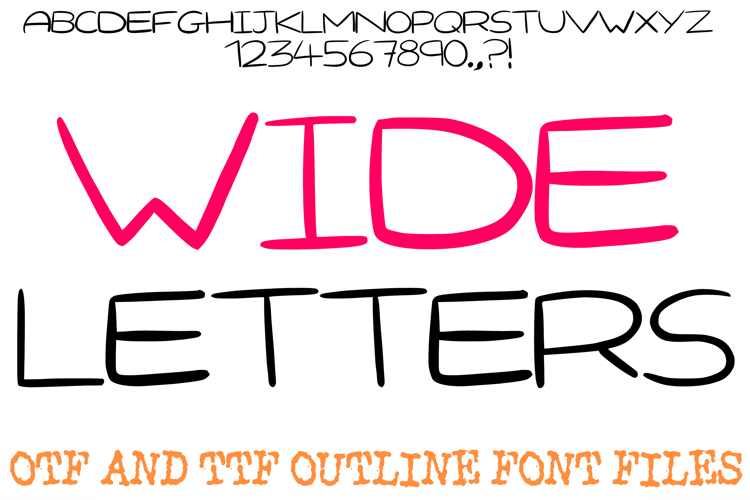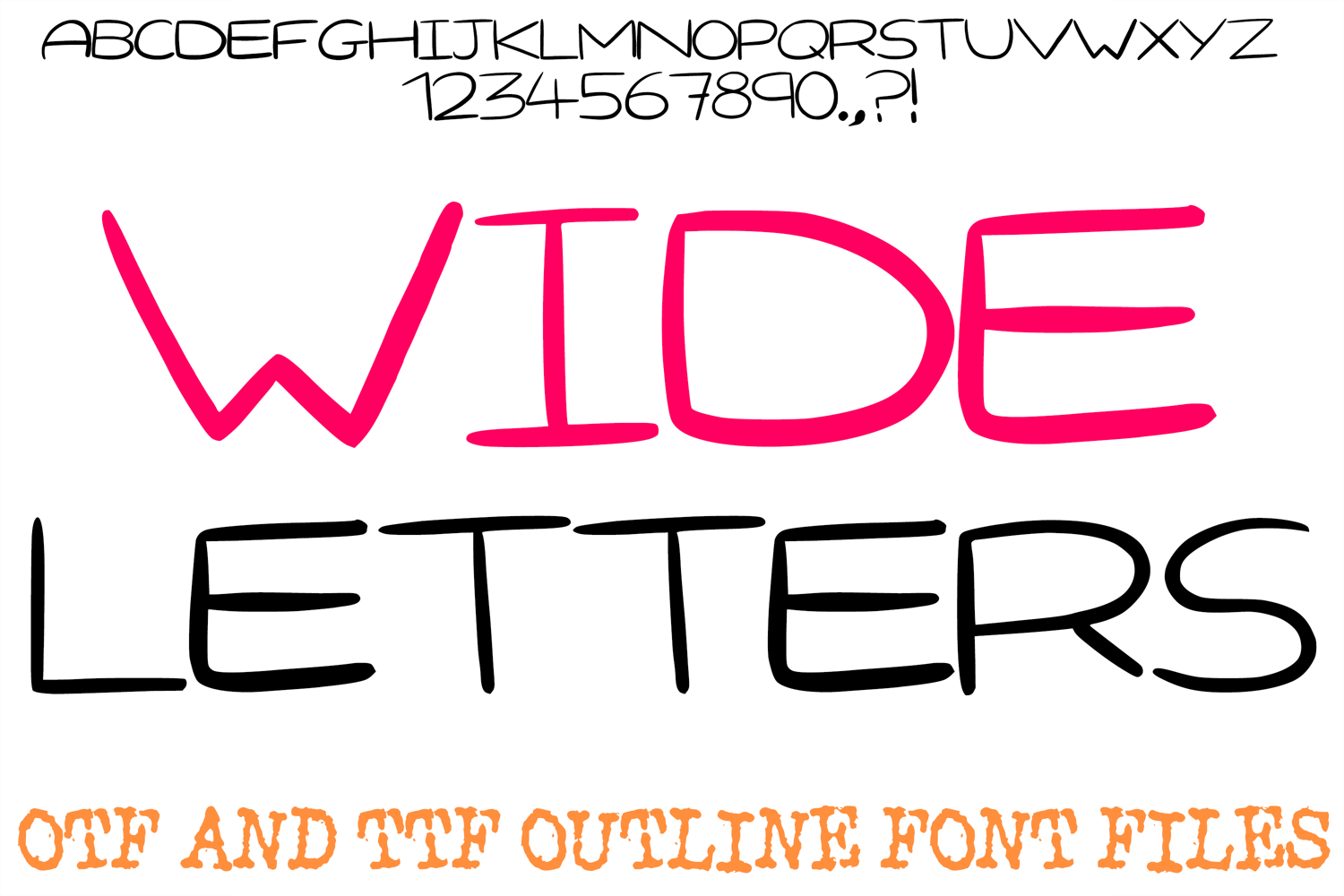
Wide Letters is a clean, minimalist display font designed with an expansive, airy aesthetic. Characterized by its relaxed, wide-set proportions and organic, hand-drawn lines, this typeface captures a modern, effortless vibe. It is a perfect choice for designers focusing on digital journaling, contemporary social media branding, minimalist packaging, and professional stationery.
Crafted with a consistent medium weight and a friendly, open feel, Wide Letters ensures high readability while maintaining a trendy, "slow-living" aesthetic. Whether you are creating calming quote overlays, elegant wedding invitation details, or clean headings for a lifestyle blog, this font adds a touch of understated sophistication to every project.
Why Your Designs Will Stand Out
Expansive Proportions: The wide-set character spacing creates a sense of openness and breathability, ideal for modern, uncluttered layouts.
Organic Line Quality: The subtle, hand-inked texture gives your text an authentic feel that standard geometric fonts lack.
Minimalist Versatility: Its simple, clean structure makes it incredibly easy to pair with complex illustrations or bold photography.
High Legibility: Even with its unique width, the characters remain clear and easy to read, making it suitable for both short titles and longer decorative notes.